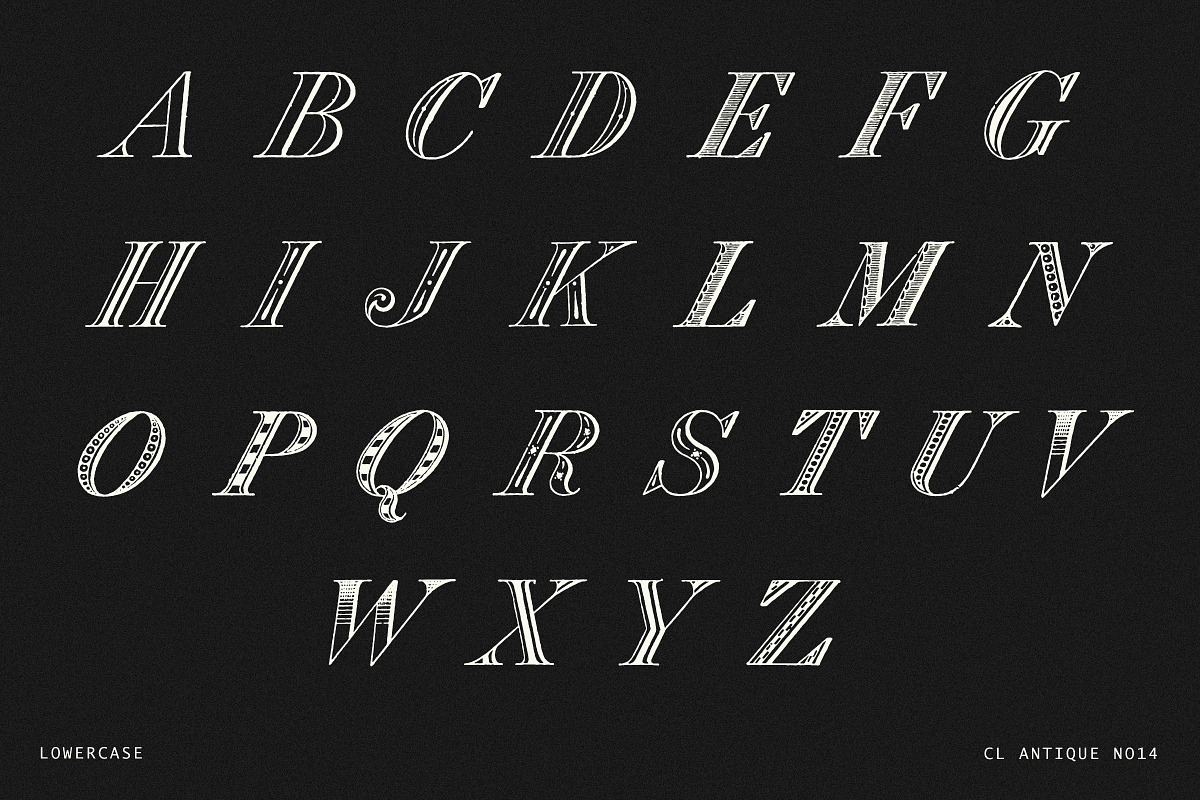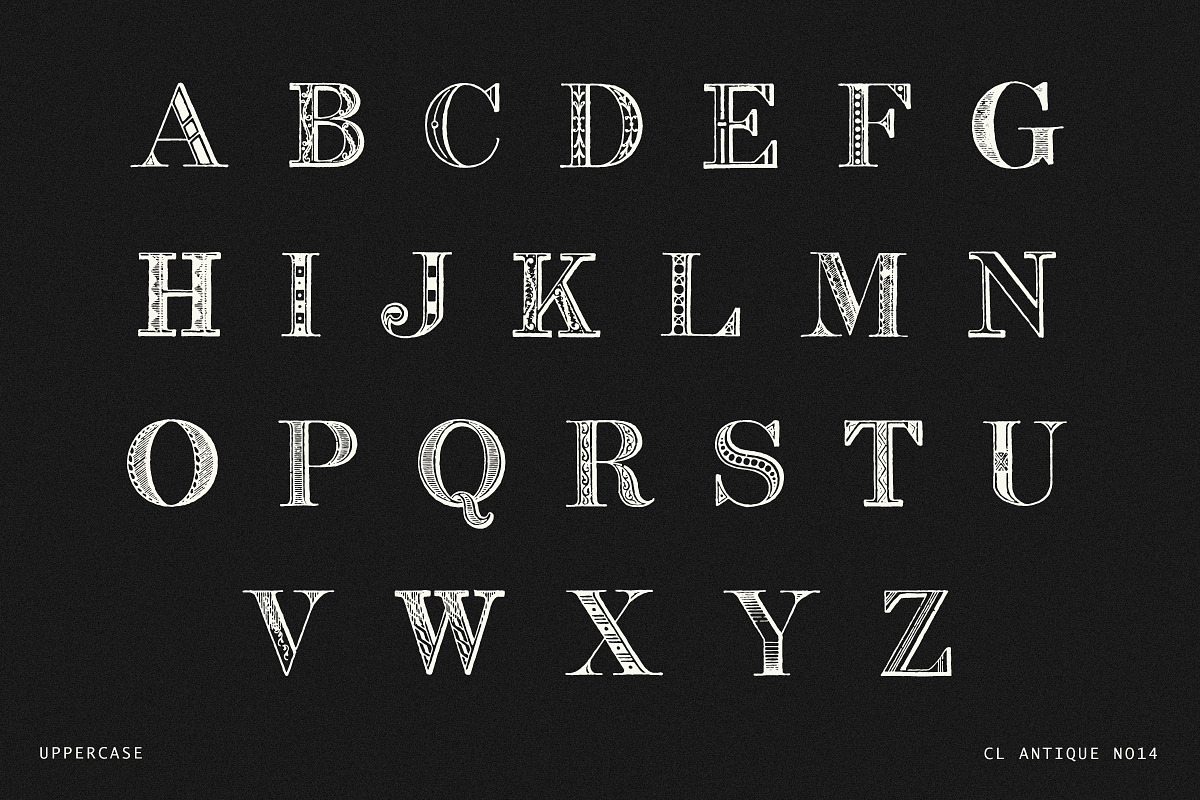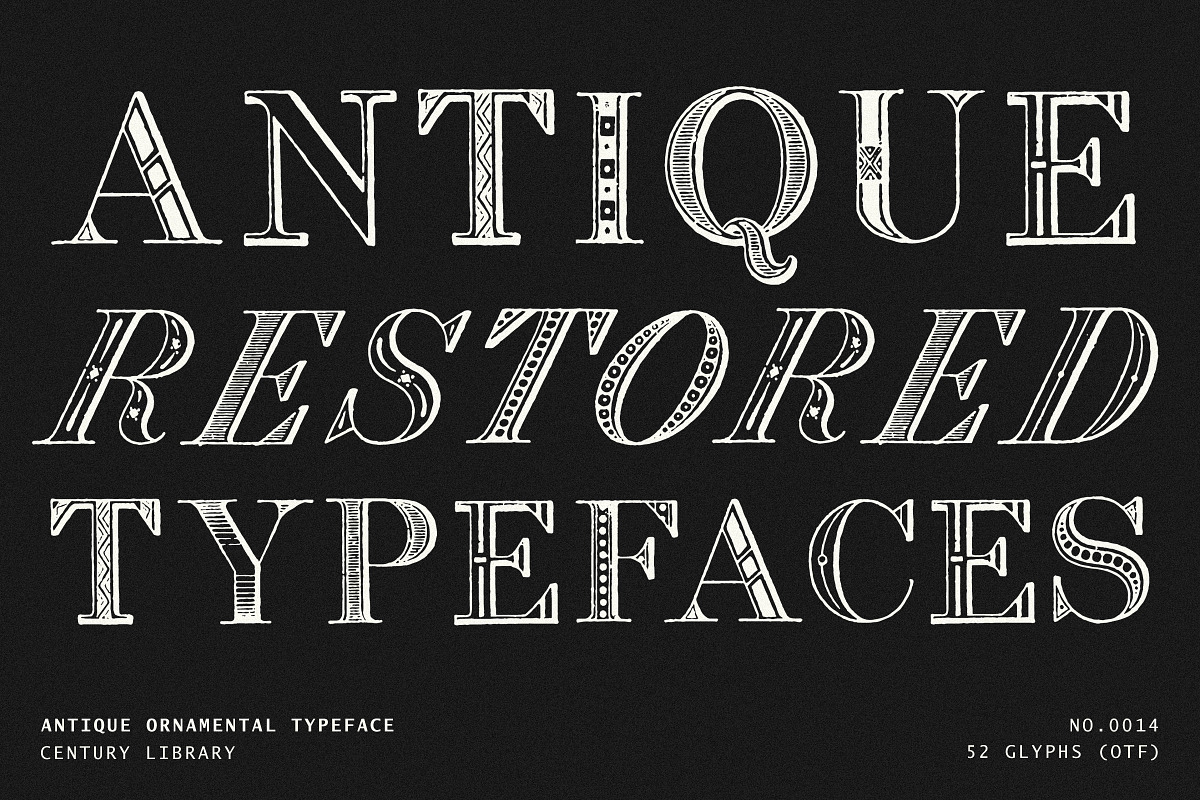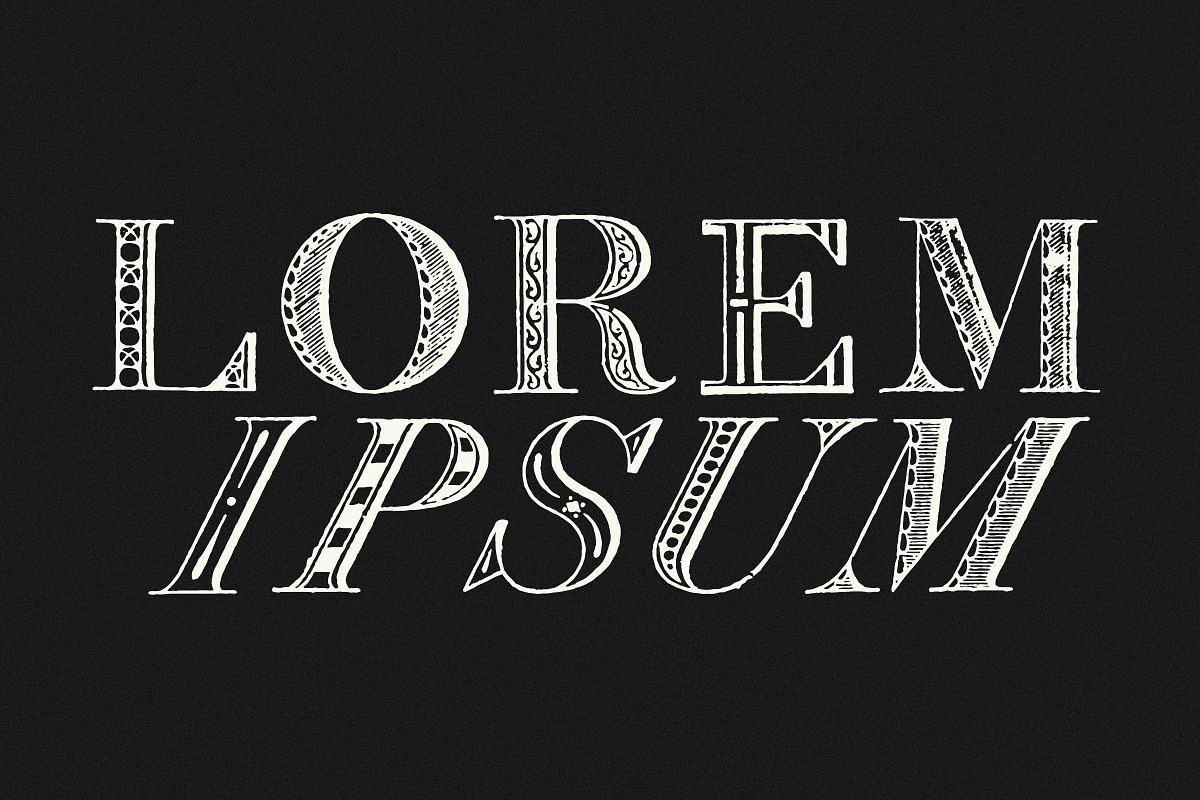
Decorative Vintage Serif Font - No14
Introducing CL Antique No.14 – a restored vintage serif packed with playful ornaments, delicate textures, and historic charm.
This unique typeface is part of the Century Library archive collection, carefully revived from original 19th-century printed specimens. Every letter has been scanned, cleaned, and converted into a working font, preserving the detailed linework, creative decorations, and authentic vintage flair.
This isn’t a modern reinterpretation. Each glyph is a faithful restoration of real antique craftsmanship – combining classic serif structure with imaginative decorative styles. The font includes uppercase and italic letterforms, giving you lots of flexibility for different design uses.
Perfect for vintage-inspired posters, editorial layouts, packaging, logos, boutique branding, and any project that needs a bold and playful touch of history.